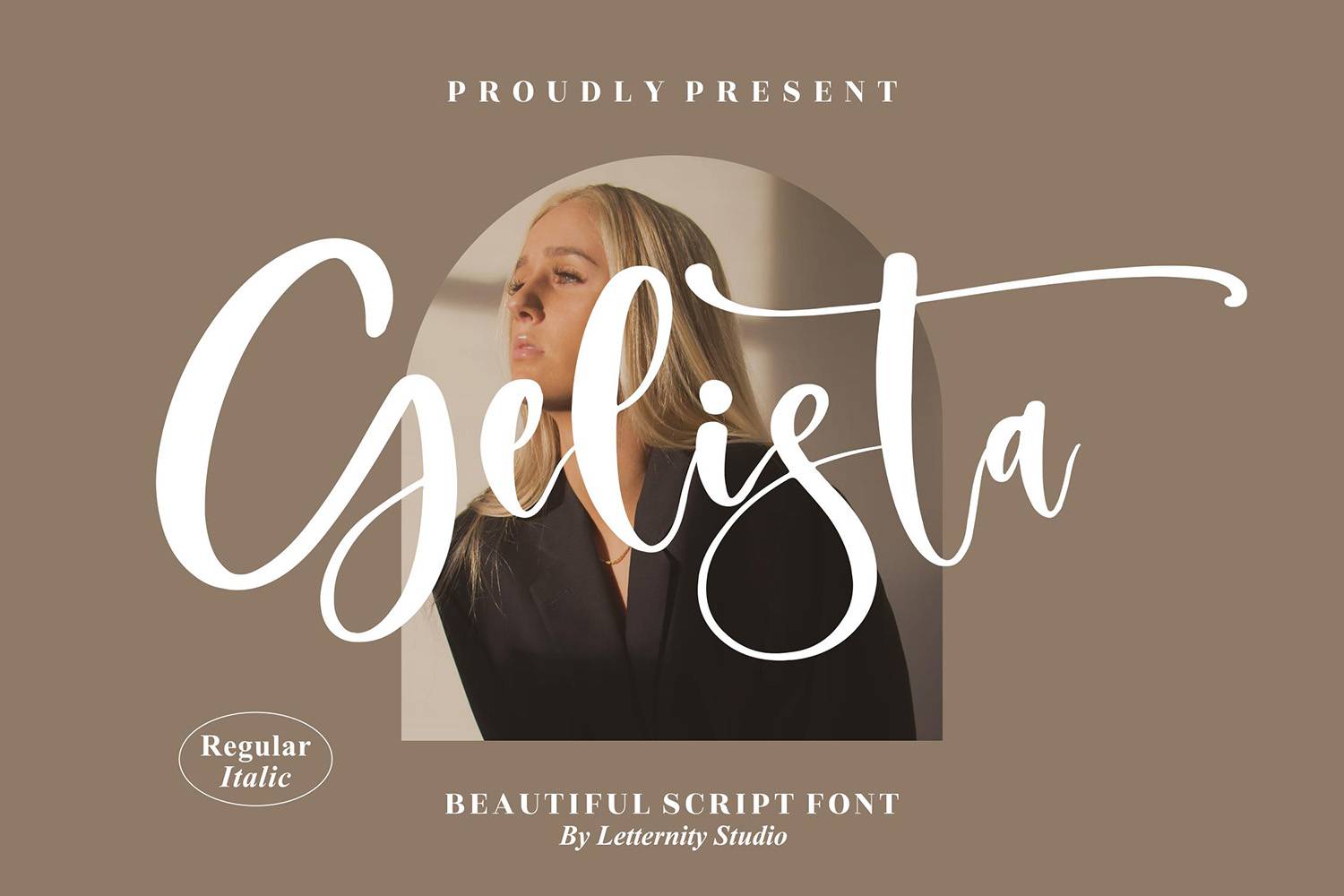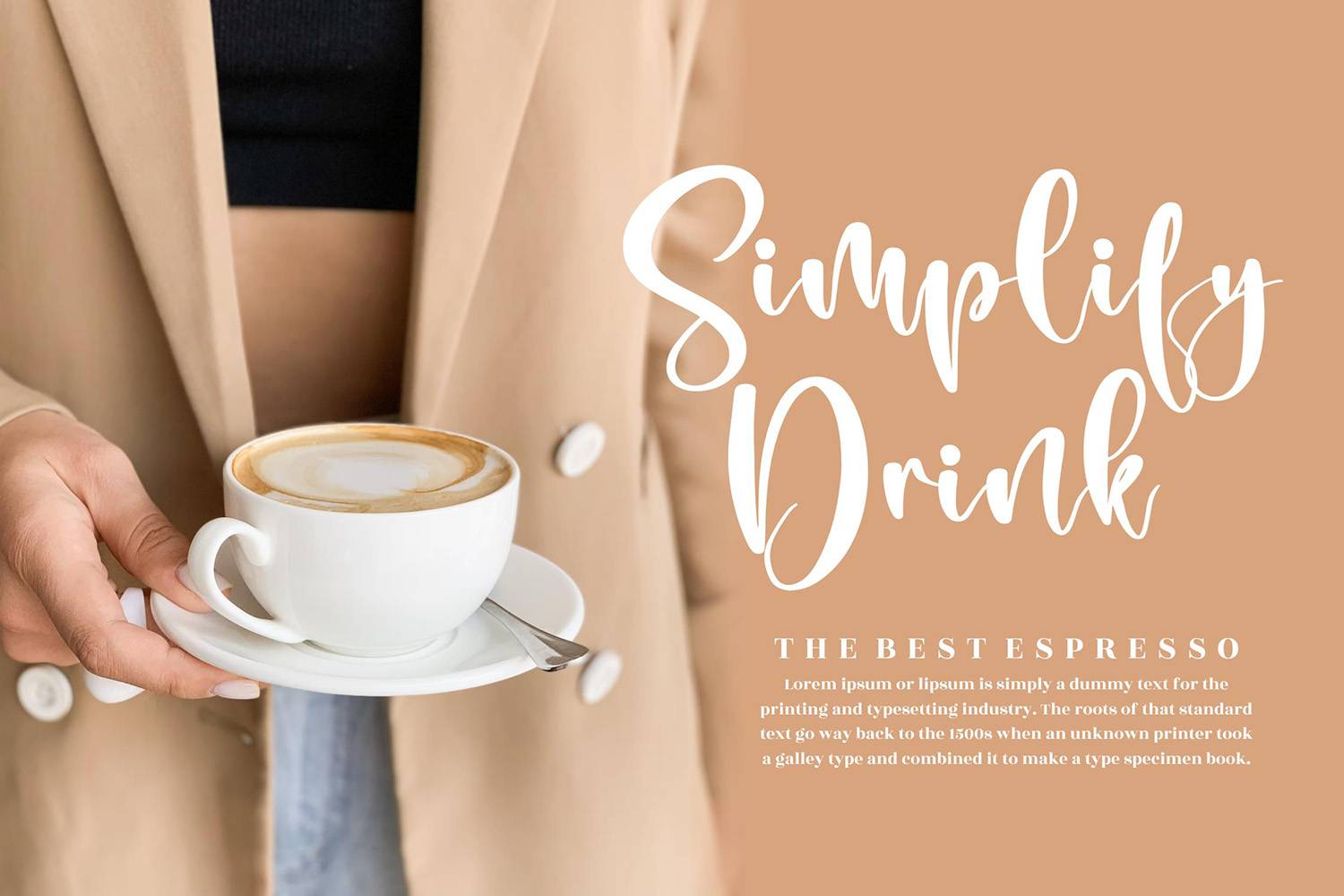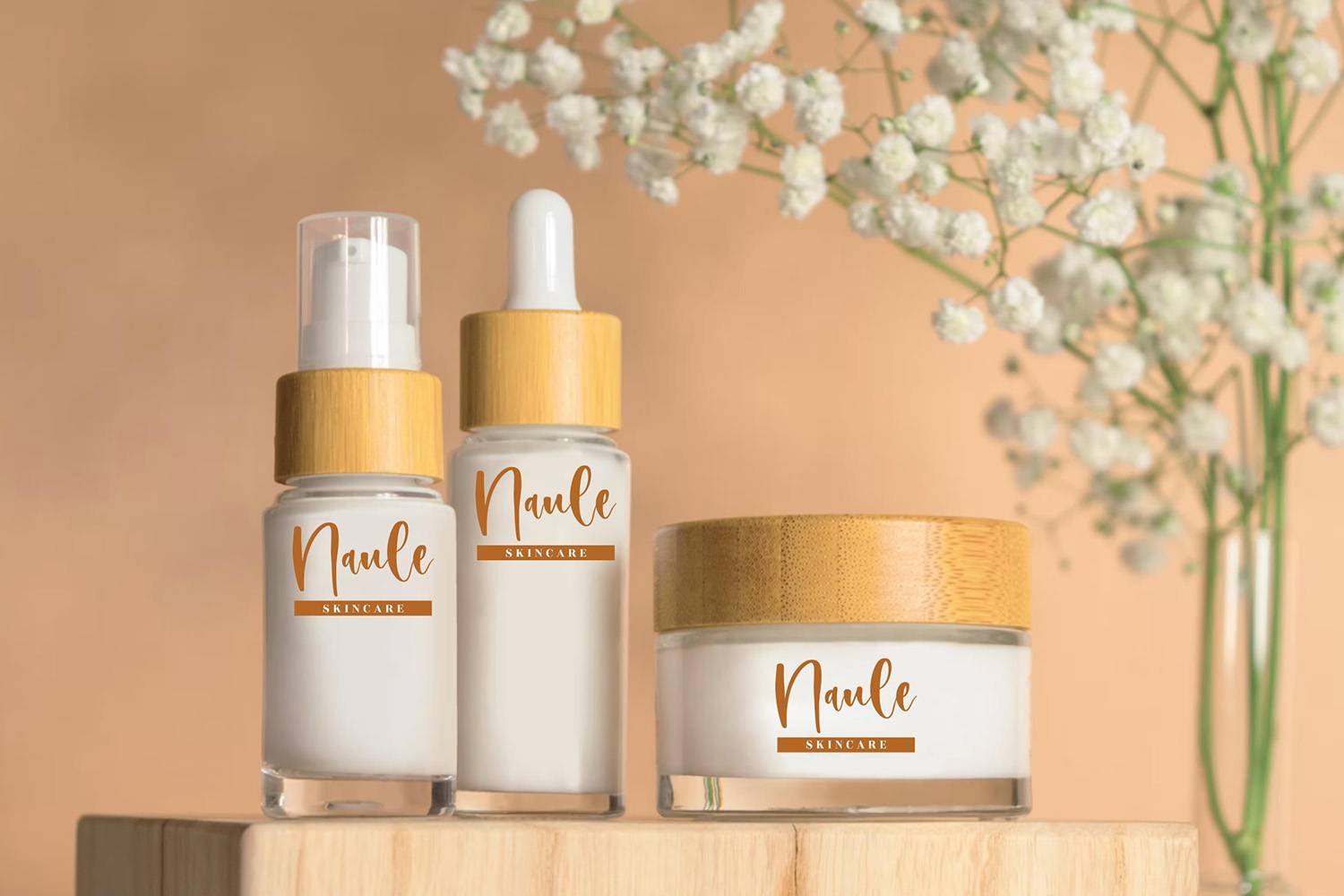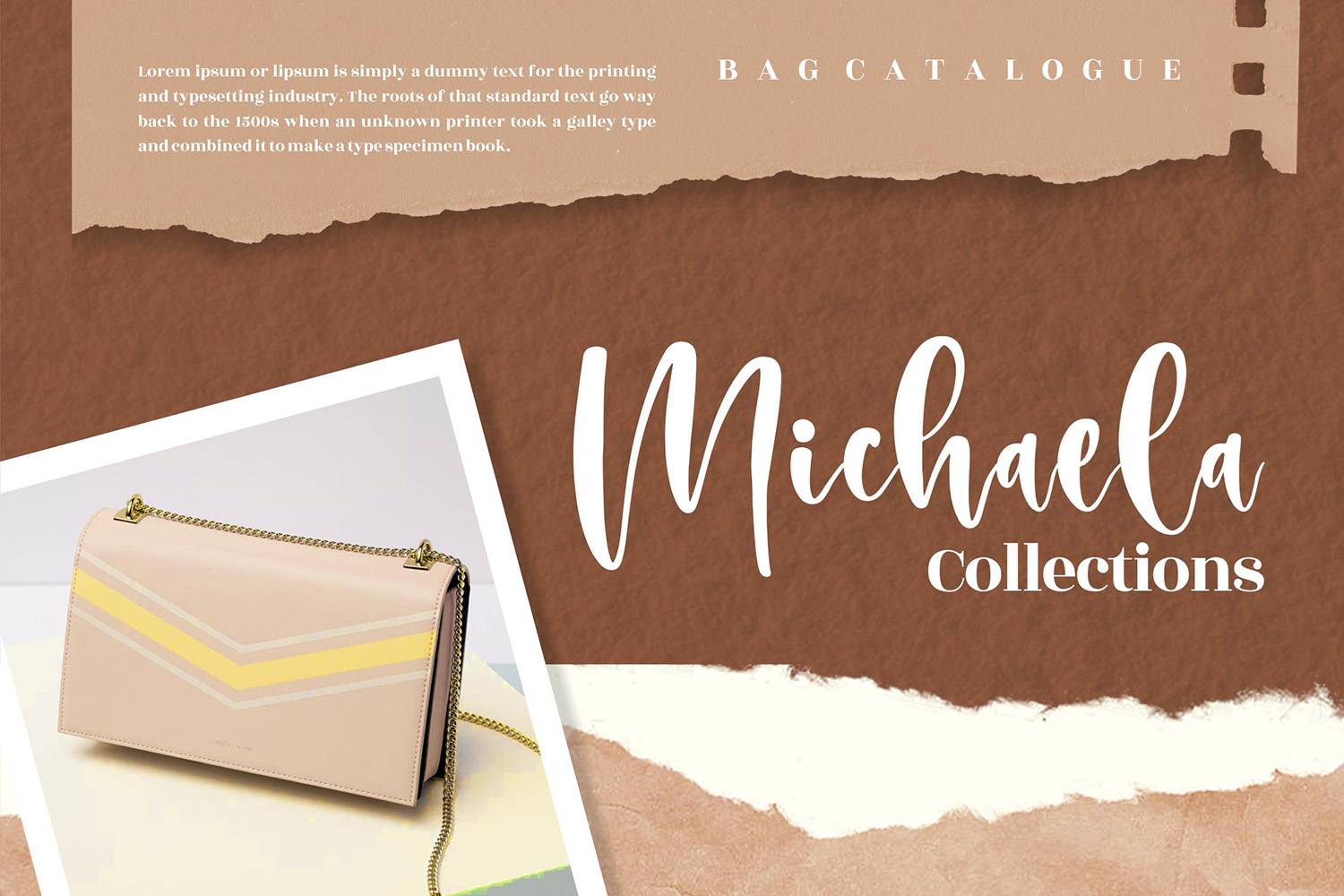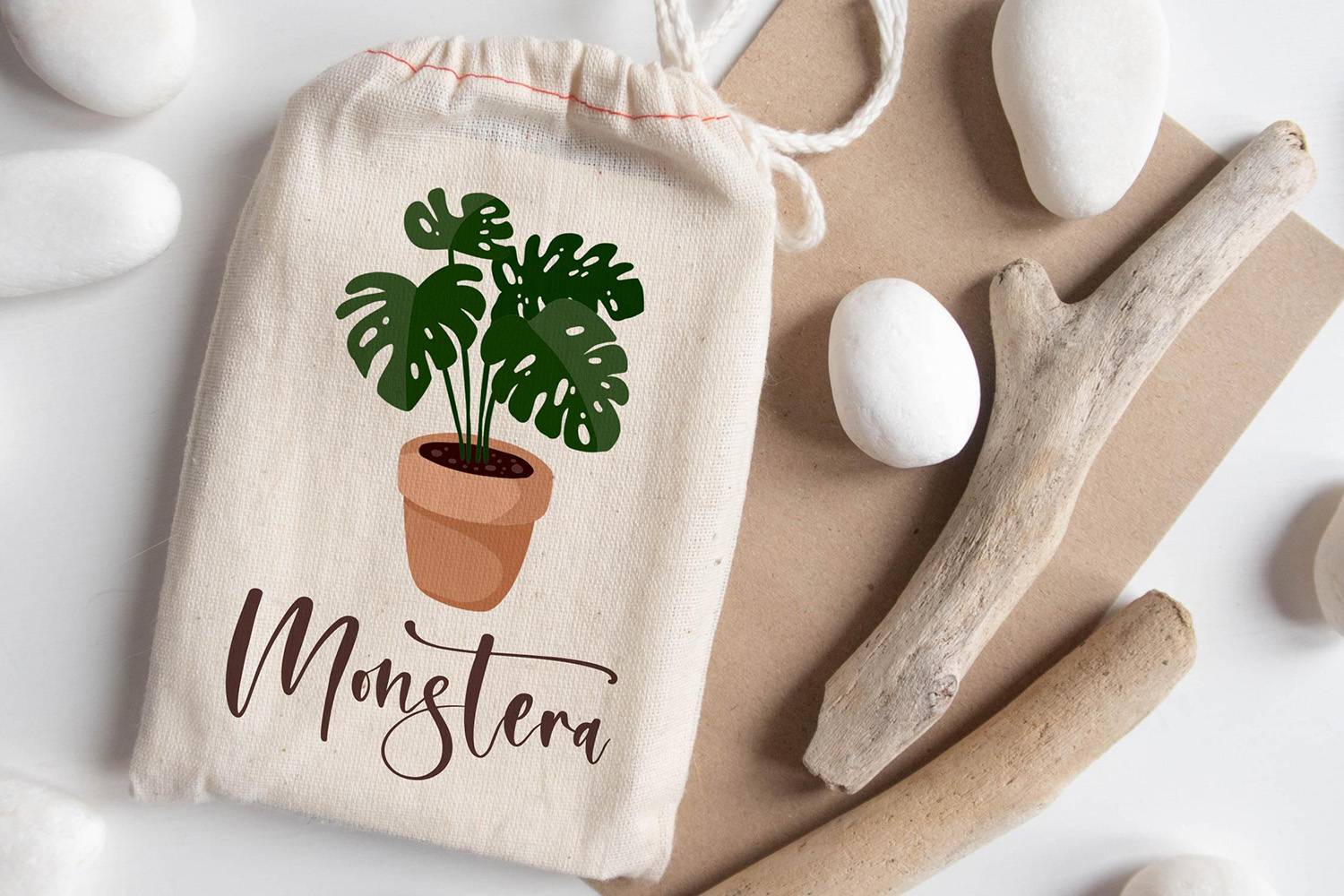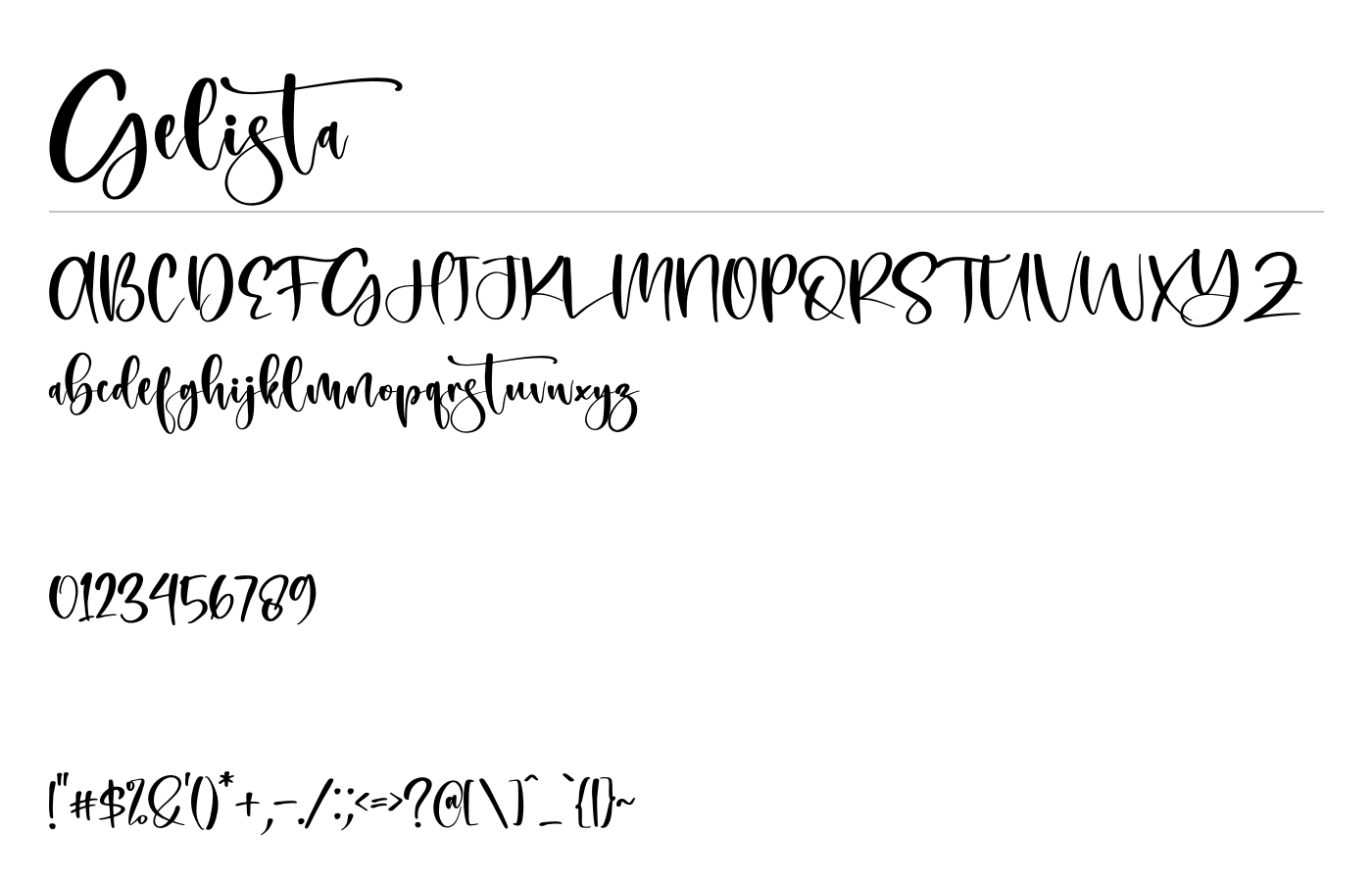
Gelista is a playful, modern script font with a lively, hand-lettered feel. Its fluid strokes and flowing connections create an elegant yet casual style, perfect for adding a personal touch to branding, invitations, or creative projects. This font works well for designs that seek charm and warmth with a touch of sophistication.
Gelista Font
About Gelista Font